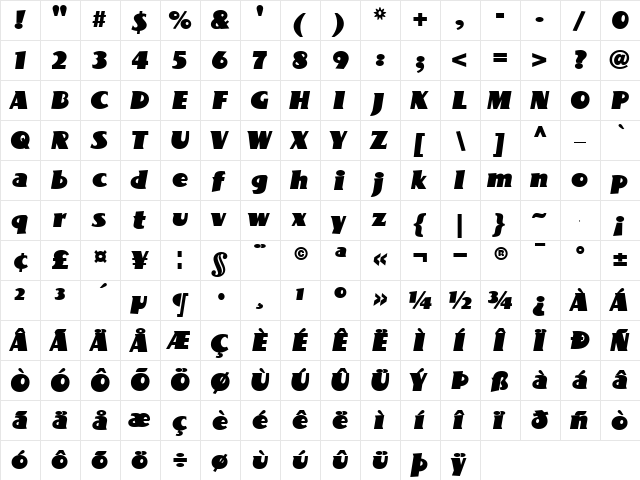
BottleKaps S Italic Regular
Design Context for BottleKaps S Italic Typeface
BottleKaps S Italic takes a measured approach to typography — its balanced proportions and neutral character make it a reliable workhorse for both digital and print work. The slanted form adds forward momentum and visual energy.
Pro Tip: Try BottleKaps S Italic for annotation and caption copy alongside an upright companion — the contrast in angle creates a dynamic but ordered typographic system.